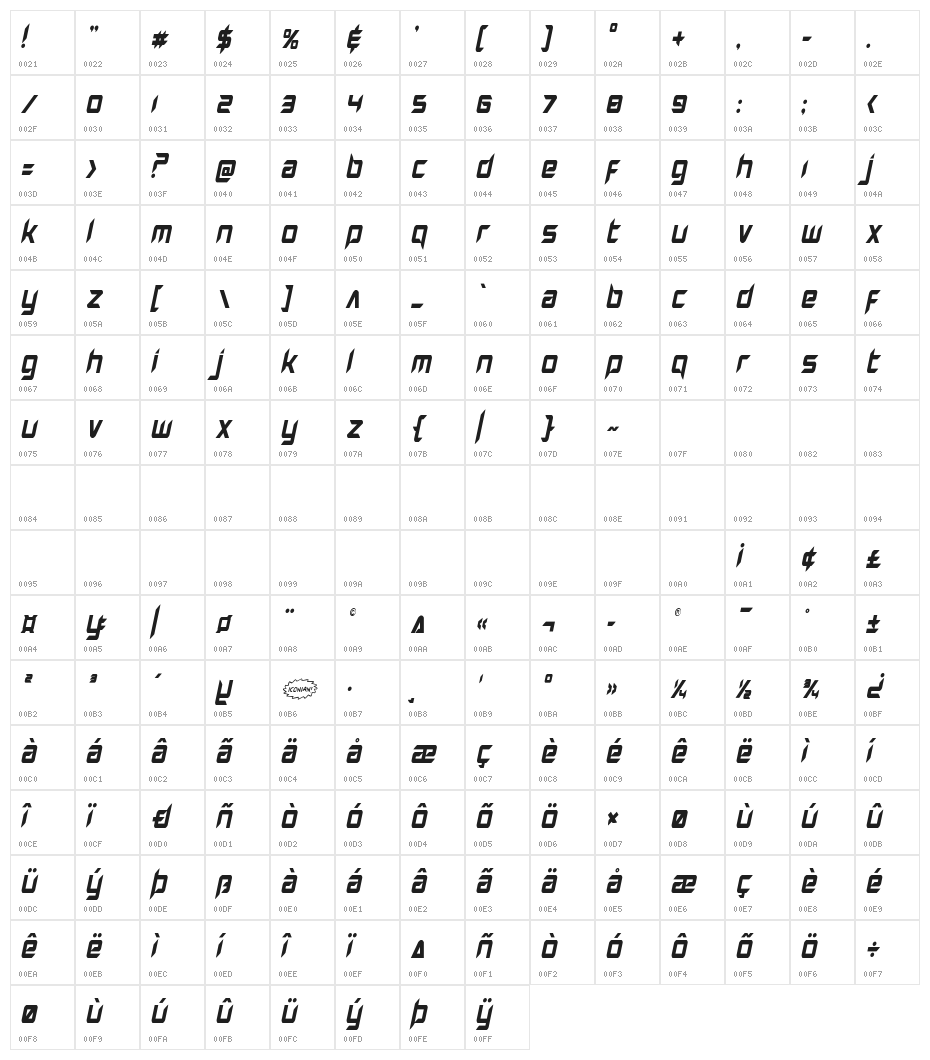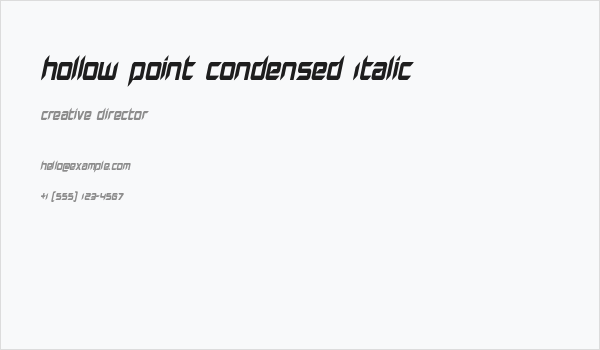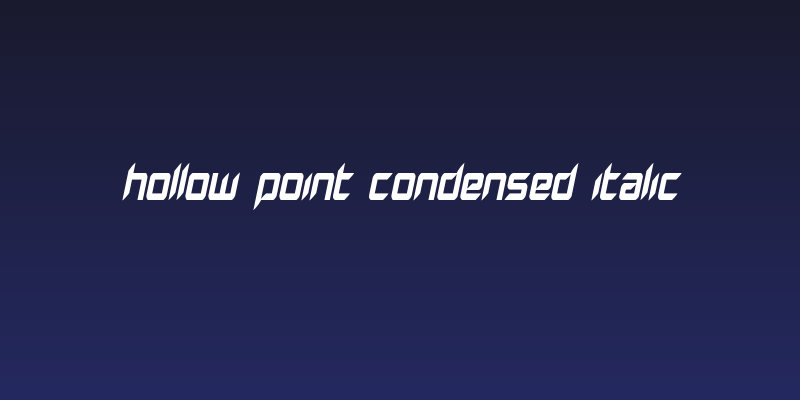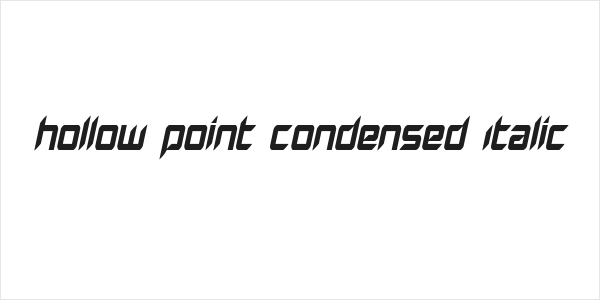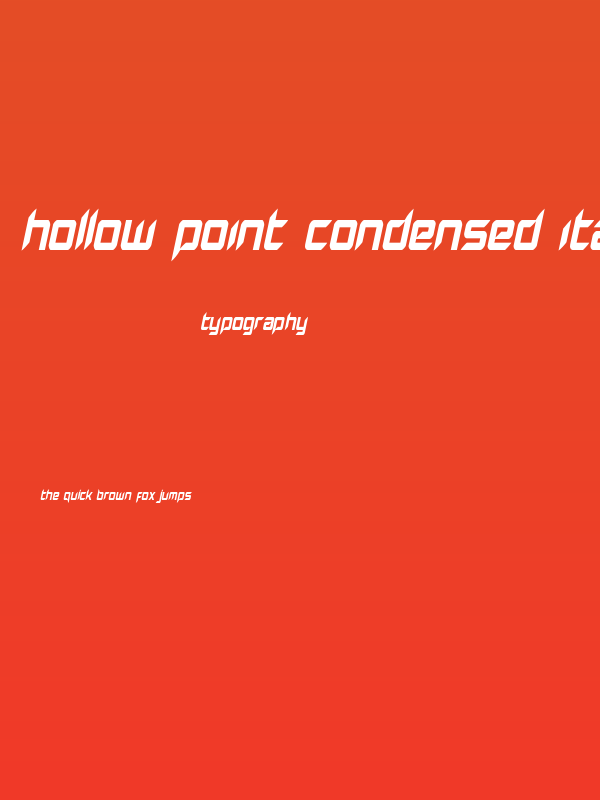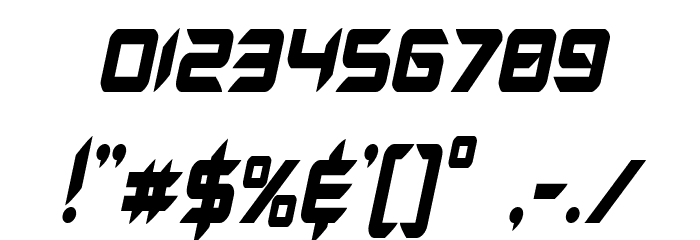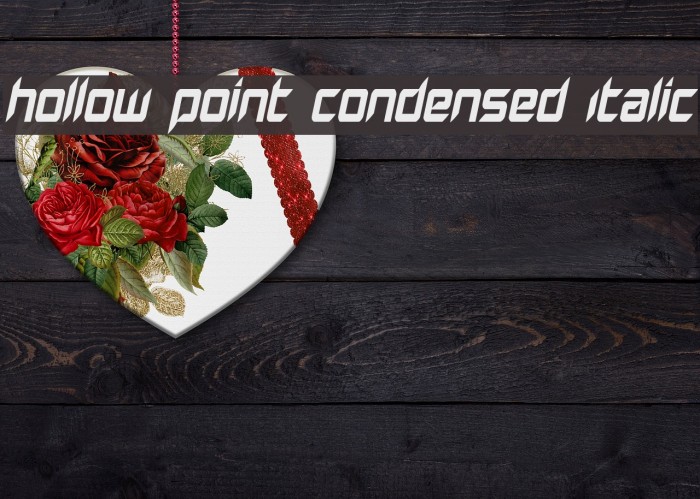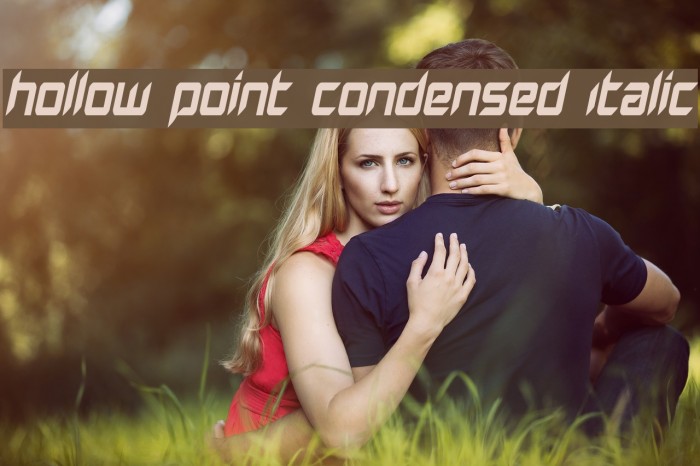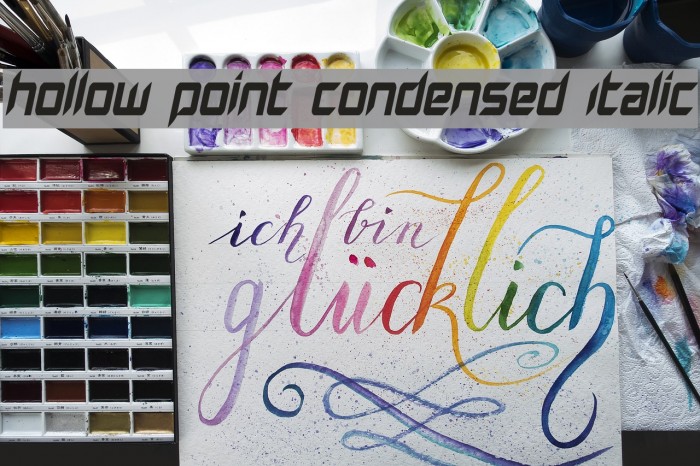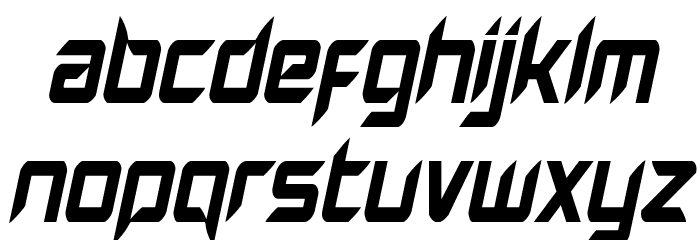
Hollow Point Condensed Italic Font
This font features a bold, italicized style with a condensed width, giving it a sleek and modern appearance. The characters have sharp, angular edges and a futuristic aesthetic, making it stand out in any design. The uppercase and lowercase letters maintain a consistent style, with a slight slant that adds dynamism and movement. The numbers and special characters are designed to match the overall angular theme, ensuring a cohesive look across all text elements. This font is ideal for projects that require a strong, impactful visual presence.
| Proposed Projects | Ideal for futuristic branding, tech-related designs, sports team logos, and dynamic posters. |